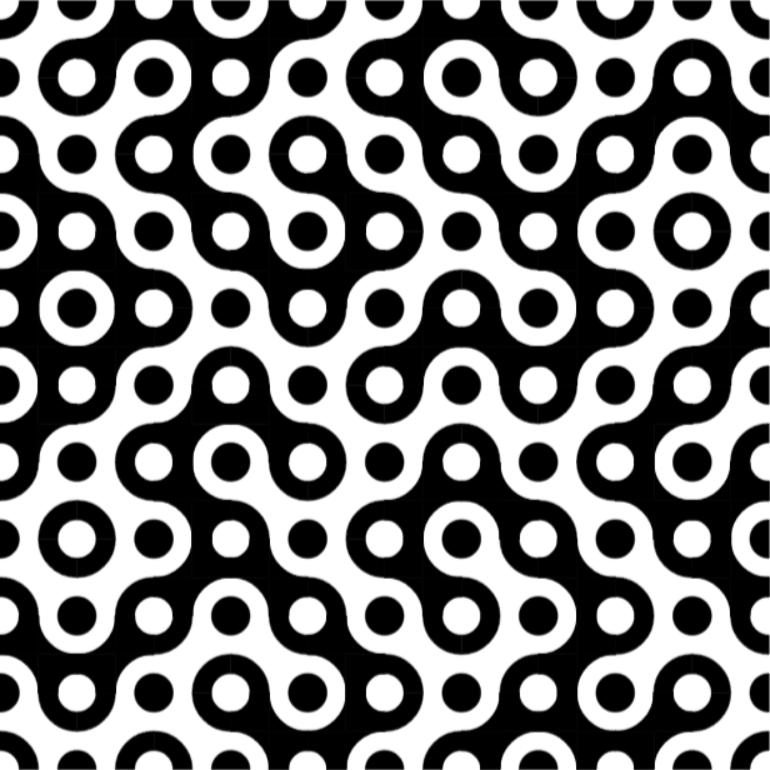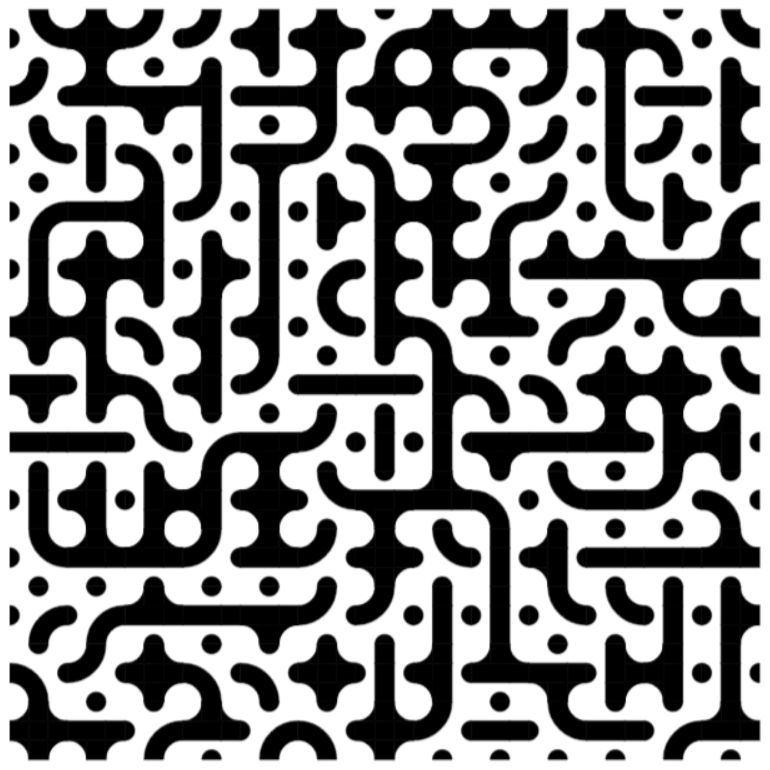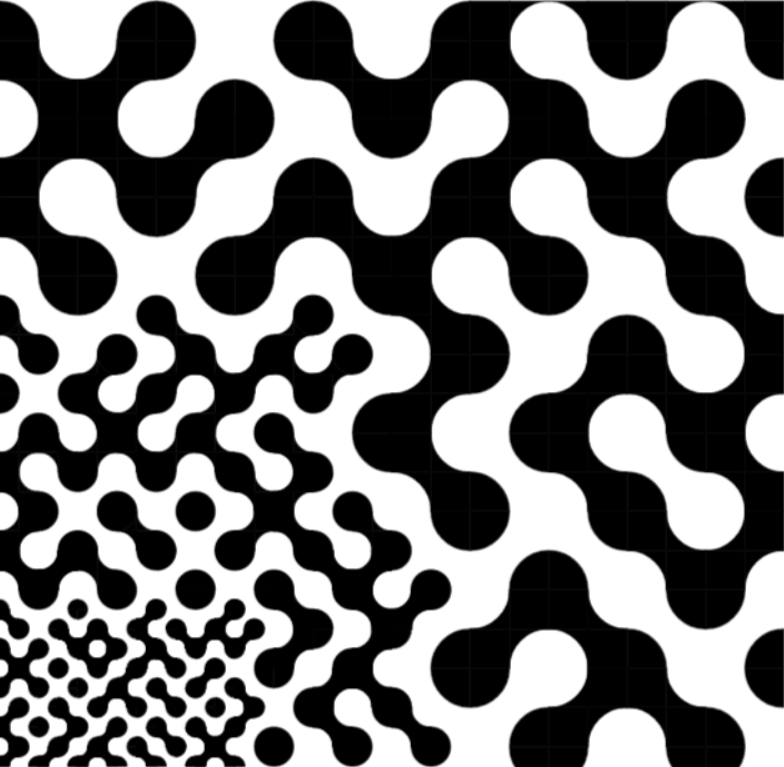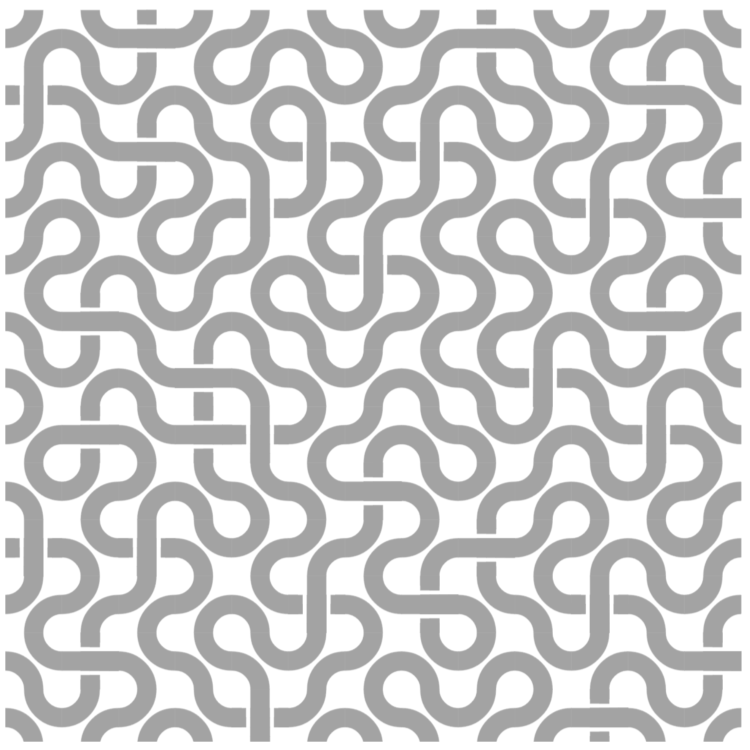
• Truchet tilings. The tile sets are at the bottom. The patterns are random compositions or reproductions of existing ones.
Nice Tiles!
At last, I cracked the technical challenge of making Truchet tiles on Fontstruct. Enjoy it.
@Frodo7 - A masterful achievement!  Congratulations on your breakthrough.  :^)
@Goatmeal: Thank you for your comment and generous rating. I believe it was a big deal because Fontstruct — although modular by nature — is not very Truchet-friendly. The tile sets are shown under each tiling to demonstrate how complex patterns emerge from a few simple tiles. However, I could not make custom bricks for each tile, which would have made my job a lot easier. Instead, every trick in the book was used to achieve the perfect look (filters, custom bricks, and nudging).
The next challenge is to build multi-scale Truchet patterns. I'm not sure whether it's possible with Fontstruct, or not, but we'll soon find out.
Super-interesting work!
This make to remember to the FS Patterns.
Fascinating and beautiful!
Totally agree with four.
I would add "mesmerizing"  to it as well.
Great stuff Frodo7!
Multi-scale Truchet tiling.
Fascinating fractalization!
Congrats on the TP! These are some wicked cool patterns. Pretty sure you can work out some amazing typefaces with the multi-scale one.
Congratulations, Maestro! Nice last sample.
Oh wow, beautifully dangerous!  ; )
@faux_icing: Thank you for your kind words. You are right: I plan to build a font using one of these patterns. It won't be the very first Truchet-tiles font, however. I have to do something better. Sadly, the summer heatwave slows me down.
@elmoyenique: Thank you. The last sample is a new pattern created three days ago. It is suitable for labyrinths/mazes (with crossings).
Fontstruct tessellating: